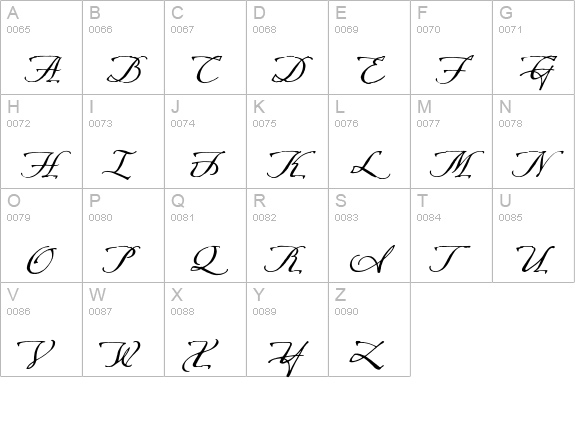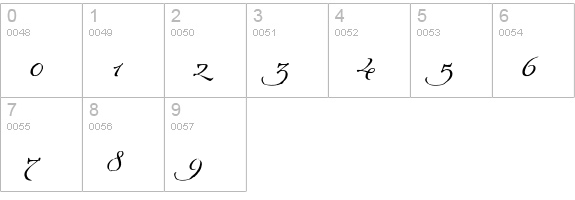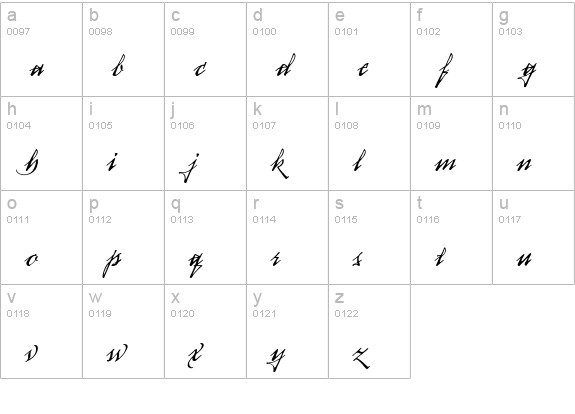
Arcana GMM Std Manuscript Font Details
Arcana GMM Std Manuscript font is a stunning and elegant typeface that exudes sophistication and uniqueness. With its intricate and flowing design, this font is perfect for adding a touch of sophistication to any project, whether it's for print or digital use. What sets Arcana GMM Std Manuscript font apart is its versatility and readability, making it suitable for a wide range of applications such as branding, packaging, invitations, and more. Its classic yet modern aesthetic will surely make your designs stand out and leave a lasting impression on viewers. The best part is that Arcana GMM Std Manuscript font is available for free download at FontsMarket.com. So, whether you're a designer looking to add a touch of elegance to your projects or someone who appreciates high-quality typography, this font is a must-have in your collection. Download it today and elevate your designs with the timeless beauty of Arcana GMM Std Manuscript font.